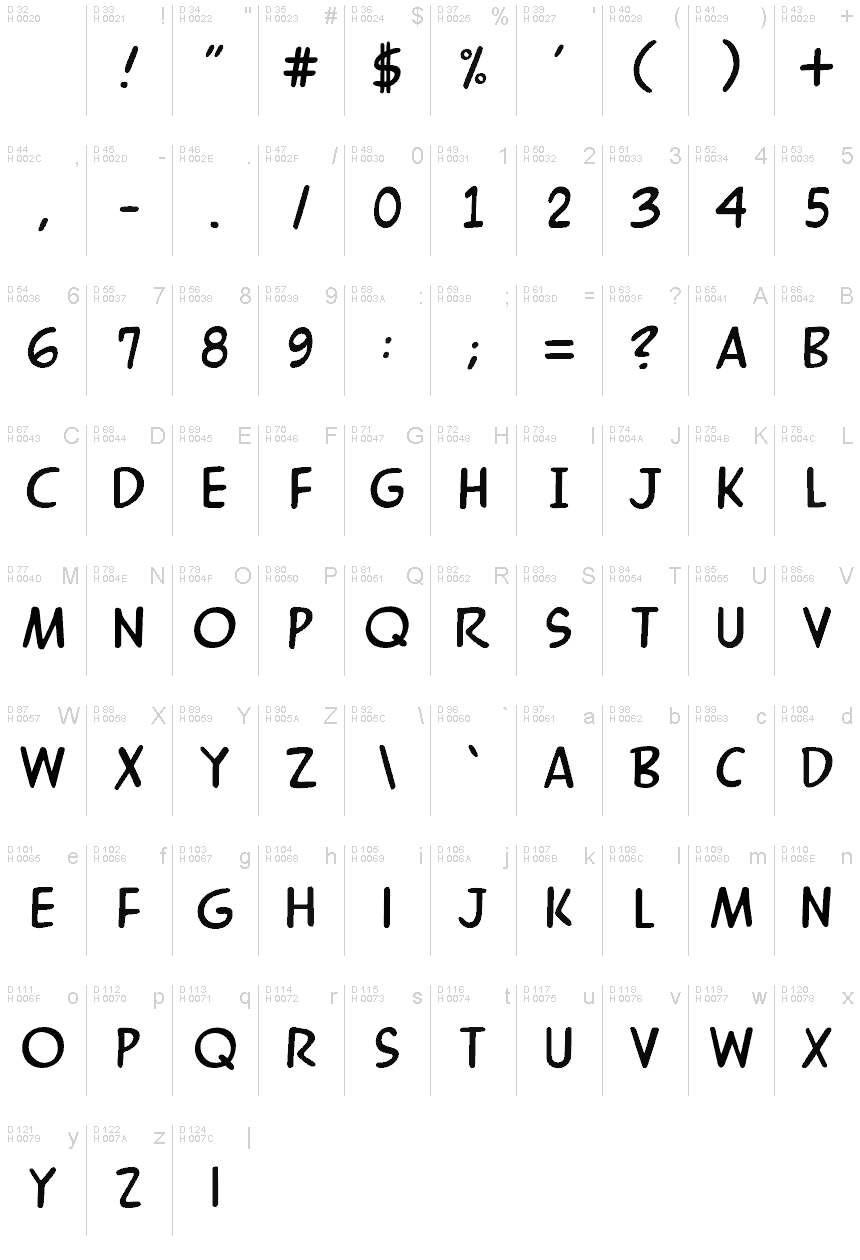
Mandrake FF Regular
Mandrake FF is a captivating display font that exudes a playful, comic-inspired aesthetic. Designed by flyer7, this font boasts a distinctive typeface with dynamic, curvilinear letterforms that evoke a sense of whimsy and energy. The bold, chunky strokes and rounded terminals give the font a charming, handcrafted feel, while the overall design maintains a strong sense of legibility and readability.
Mandrake FF's versatility makes it an excellent choice for a wide range of applications, from vibrant and eye-catching headings to playful branding and packaging designs. Its unique character lends itself particularly well to children's content, promotional materials, and any project seeking to convey a lighthearted, approachable tone.